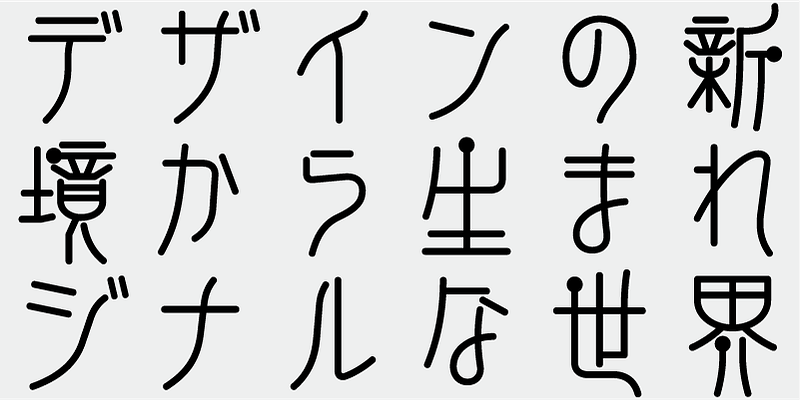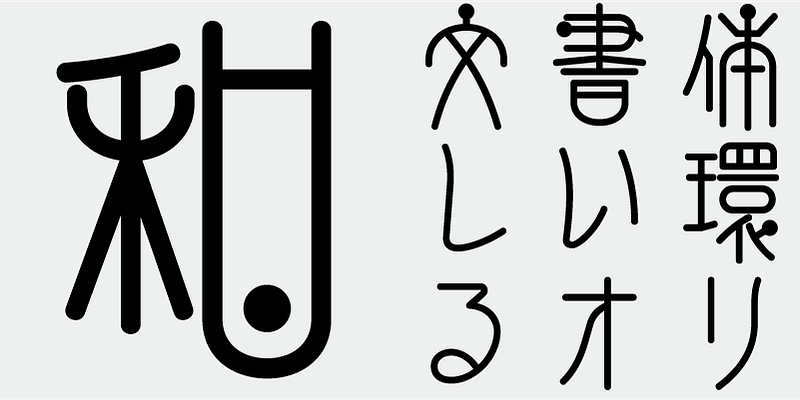
A design typeface inspired by seal script from over 2,000 years ago. The kana are soft, with an emphasis on readability. An approachable typeface.
This font includes the top 1,000 kanji characters selected from usage frequency lists compiled by newspaper companies, publishers, and the National Institute for Japanese Language and Linguistics, plus 206 additional characters such as kana, alphanumerics, and carefully selected symbols and punctuation marks.